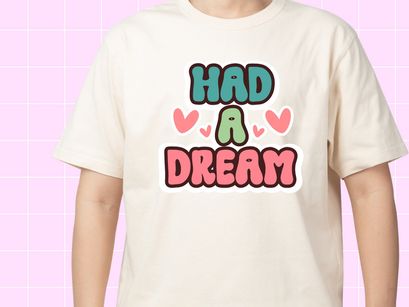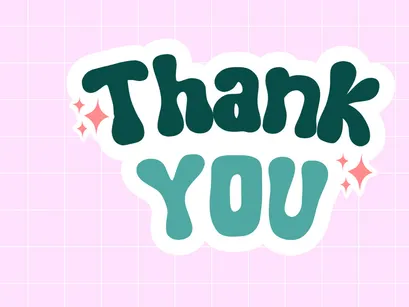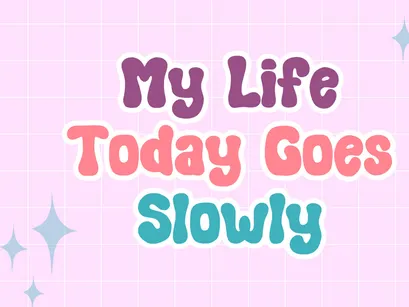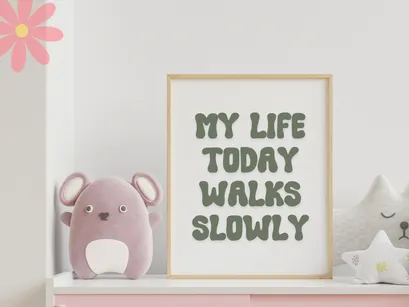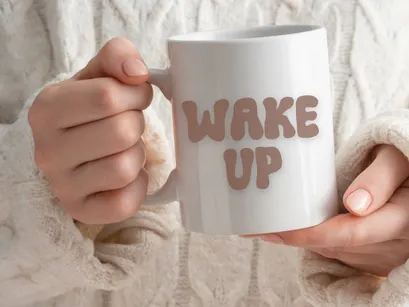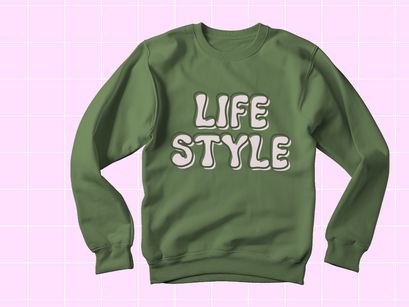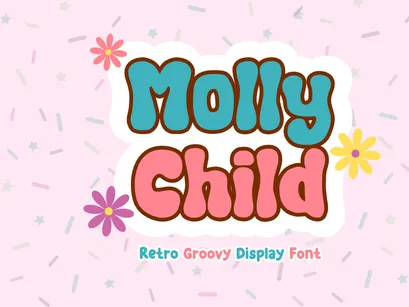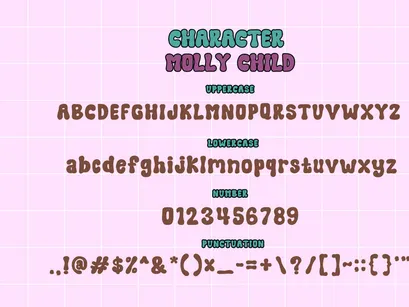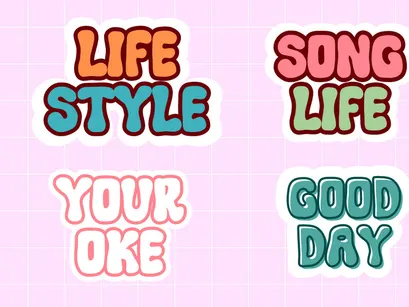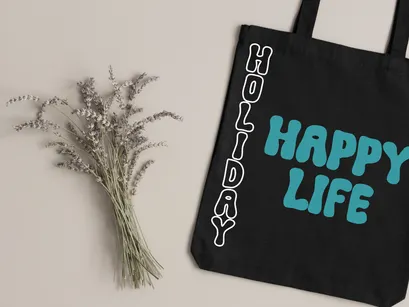
Molly Child - Retro Groovy Display Font
Molly Child features fonts in retro and vintage styles.
This display font is the perfect font for any craft project, such as posters, t-shirt quotes, sweaters, totebags, stickers, sublimation, displays, and more.. Get inspired by its unique and beautiful style and add it to your favorite designs !